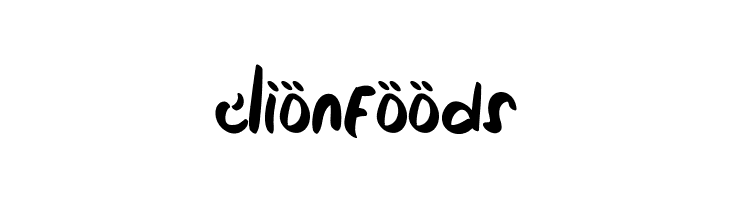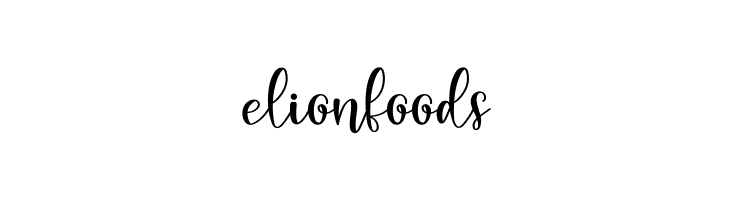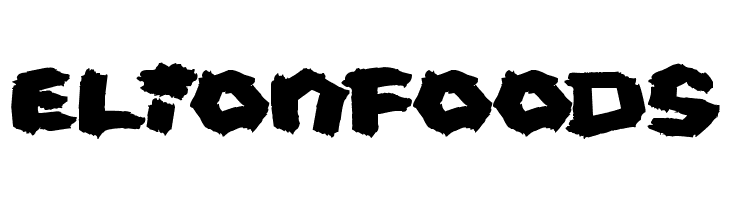
• Eyvindr Bold
A bold, angular font with a rugged, ancient style.
• Fabrica Creativa
( Fonts by Jimtype Studio )
A bold, playful font with rounded, bubbly characters and a whimsical style.
• Fade 2 Back
• fadila
An elegant script font with decorative swirls and a sophisticated style.
• Fairy Tail Image Bold
Ornate, manga-inspired pictorial font with character heads and symbols.
• Fantasy land
A playful, handwritten font with bold strokes and a whimsical style.
• Farmfont
A decorative font with farm-themed illustrations for a rustic aesthetic.
• Fast Food Icons
Bold, playful fast food icon set with solid silhouettes.
• Fat Brush
• Fat fairy
( Shane Sayers )
A playful, bold, and rounded font with a hand-drawn, cartoonish style.